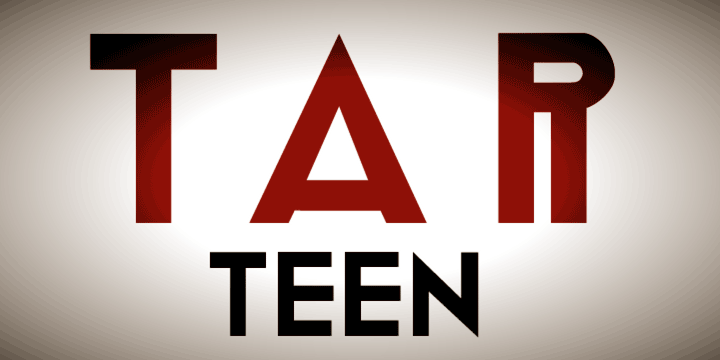
Tar Teen is a font based on my handwriting. It is meant to be at crossroads between art nouveau letterings and steampunk lettering, so that you could see this font on a front store of the 1920s as well as on the computers inside Iron Man’s helmet.
The clean lines and subtle curves allow a strong impact on the eye of the reader, and the thickness of the characters allows for an infinity of possible combinations. More…
The font exists in two variants, Tar Teen Straight, the classic version of the font, and Tar Teen Variant, another version that brings a little rhythm. The two families can be used together as alternatives to vary the look of a character that is reused more than once.